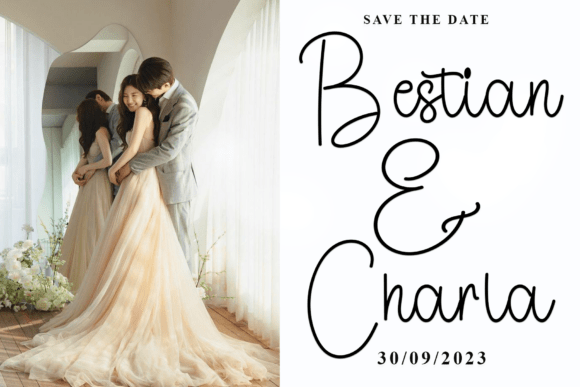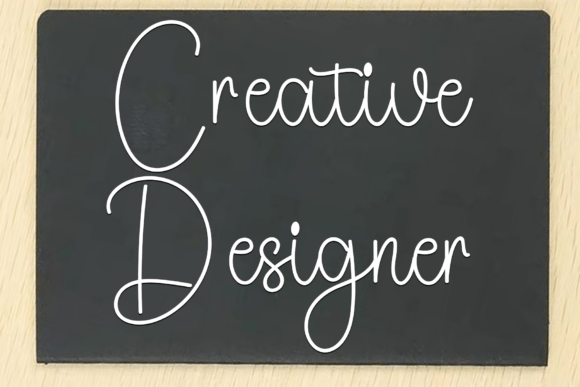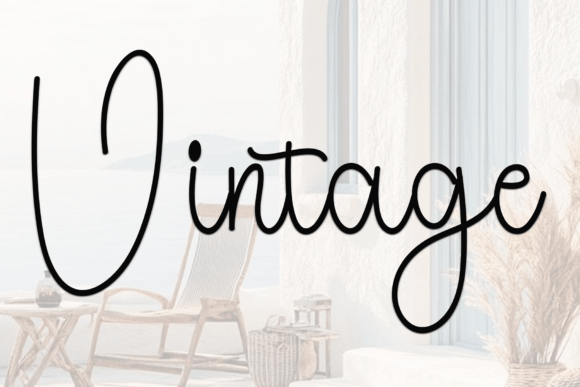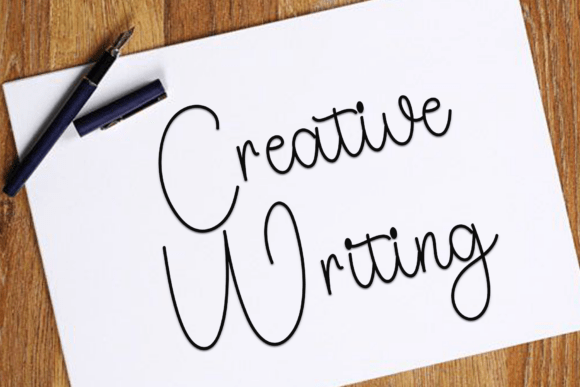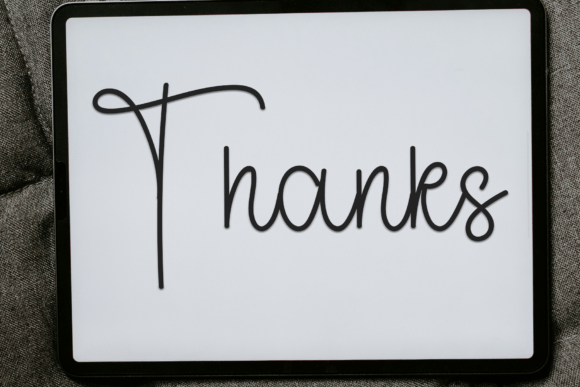
Elevate Your Designs with Creative Signature Font: The Epitome of Elegance and Sophistication
In the realm of design, the right font can make all the difference between a good design and a great one. For those who appreciate the beauty of simplicity and the elegance of calligraphy, Creative Signature Font stands out as a beacon of sophistication. This sleek, modern, and effortlessly stylish calligraphy font is crafted to bring authentic elegance to a wide array of design projects, making it an indispensable tool for designers who aim to infuse their work with a touch of luxury and personal flair.
The Essence of Creative Signature Font
Creative Signature is more than just a font; it’s a design statement. Its graceful flow and fine-line strokes meticulously replicate the natural fluidity of a pen signature, offering a sense of warmth and personal touch that digital fonts often lack. This characteristic makes it perfect for projects where conveying sophistication through minimalism is key. Whether you’re working on branding, photography, logos, business cards, stationery, invitations, or fashion designs, Creative Signature Font brings a level of refinement and elegance that elevates your work to new heights.
One of the standout features of Creative Signature Font is its versatility. The font comes packed with a variety of alternates, ligatures, and offers multilingual support, making it incredibly versatile for a wide range of design applications. This extensive feature set allows designers to experiment with different styles and expressions, ensuring that each project can be uniquely tailored to meet specific aesthetic and thematic requirements. From digital platforms to print media, Creative Signature adapts seamlessly, providing a smooth rhythm that is both visually appealing and highly legible.
Crafted for the Modern Designer
Understanding the needs of contemporary designers, Creative Signature Font is designed to be both functional and beautiful. It is PUA encoded, which means that accessing the array of glyphs and ligatures is straightforward, allowing designers to focus on the creative process rather than technical complexities. This feature is particularly beneficial for those who want to add a handwritten touch to their designs without compromising on professionalism. The font’s ability to convey a sense of subtle luxury makes it an ideal choice for projects where the goal is to impress with understated elegance.
Applications of Creative Signature Font
The applications of Creative Signature Font are vast and varied. Here are a few areas where this font truly shines:
- Branding: Use Creative Signature to add a personal and luxurious feel to your brand’s typography, setting it apart in a crowded market.
- Photography and Fashion Designs: Add an elegant touch to photo captions, fashion blogs, and editorial designs, enhancing their aesthetic appeal.
- Logos and Business Cards: Create memorable logos and business cards that exude professionalism and style.
- Stationery and Invitations: Elevate your stationery and invitations with a font that offers the perfect blend of elegance and approachability.
Why Choose Creative Signature Font?
Choosing Creative Signature Font for your design projects means opting for a blend of modernity, elegance, and practicality. Its unique characteristics, such as a natural flow reminiscent of handwriting, make it an excellent choice for designers looking to add a personal touch to their work. Furthermore, its comprehensive feature set, including alternates, ligatures, and multilingual support, offers endless possibilities for creative expression.
In conclusion, Creative Signature Font is a powerful tool for designers and crafters who aim to infuse their projects with a sense of sophistication and personal elegance. Its sleek design, versatility, and extensive feature set make it an invaluable asset for anyone looking to elevate their design work. Whether you’re working on a branding project, fashion design, or simply looking for a stylish font for your stationery, Creative Signature Font is sure to meet and exceed your expectations.